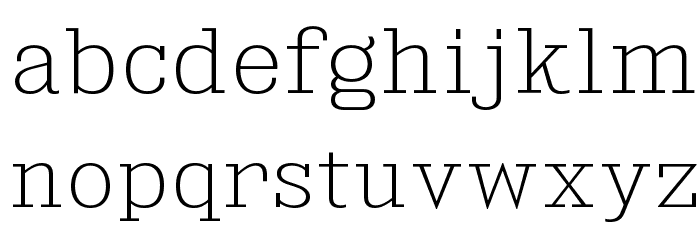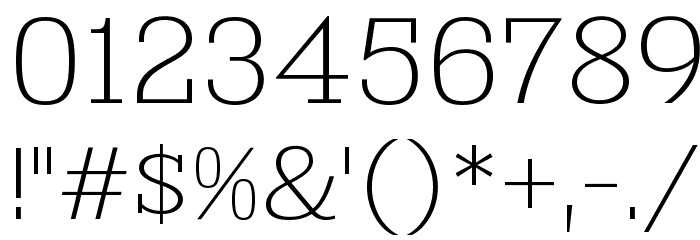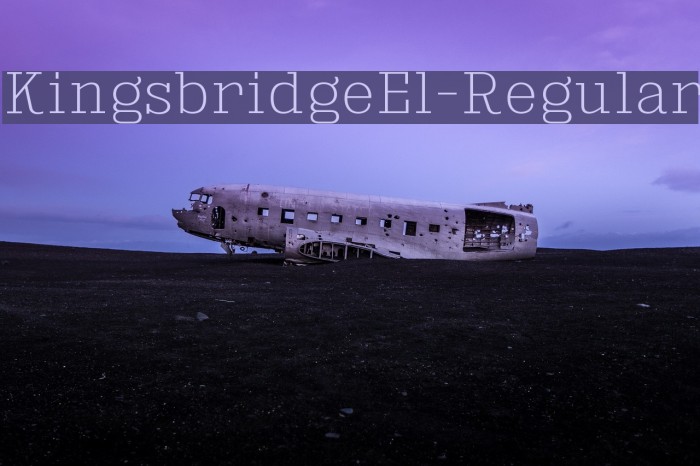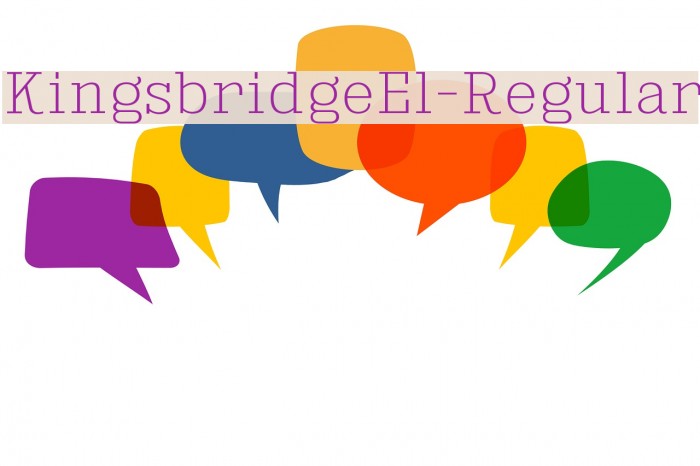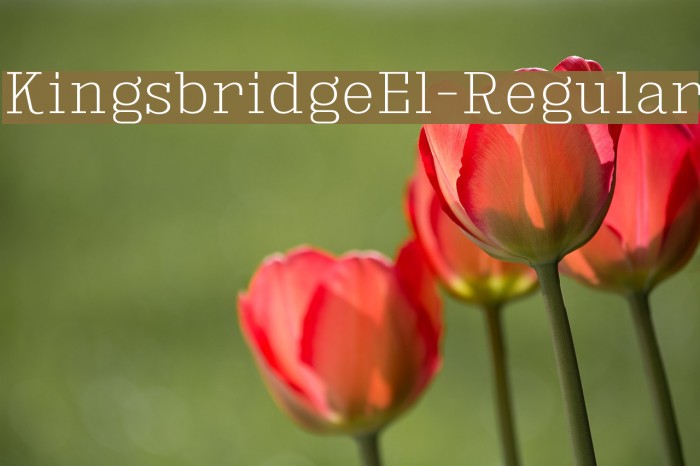
KingsbridgeEl-Regular Font
This font features a classic serif style with elegant and refined strokes. The uppercase letters are tall and commanding, while the lowercase letters maintain a balanced and readable appearance. The numerals are clear and consistent, making them suitable for various applications. Special characters are well-integrated, maintaining the overall aesthetic of the font. The design is versatile, offering a timeless appeal that can enhance both traditional and modern projects. Its clean lines and subtle serifs provide a sophisticated look, making it ideal for formal documents, branding, and editorial design.
A classic serif font with elegant strokes and a timeless appeal.
- Proposed Projects: Ideal for formal documents, branding, editorial design, and invitations.
- Category: Serif
- Overall Style: Classic